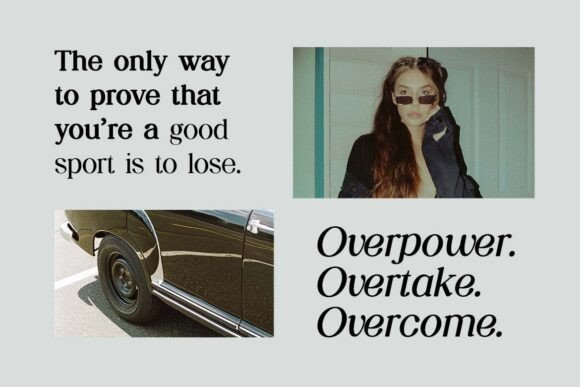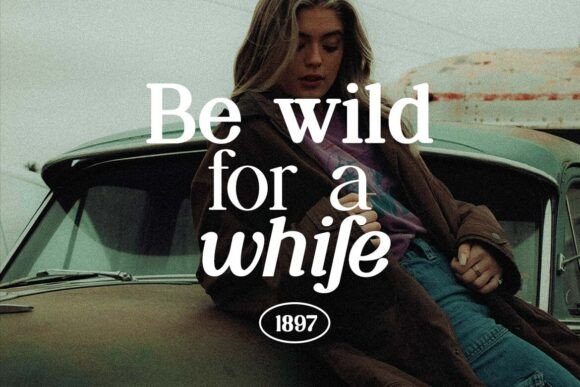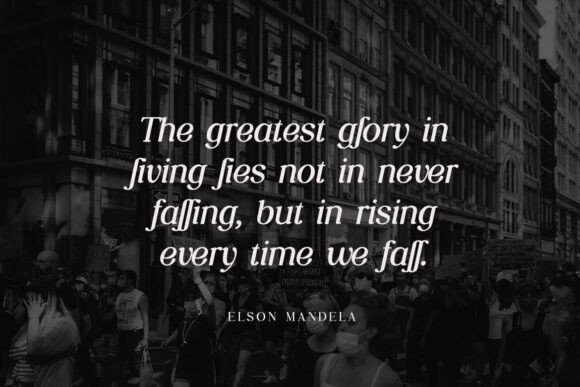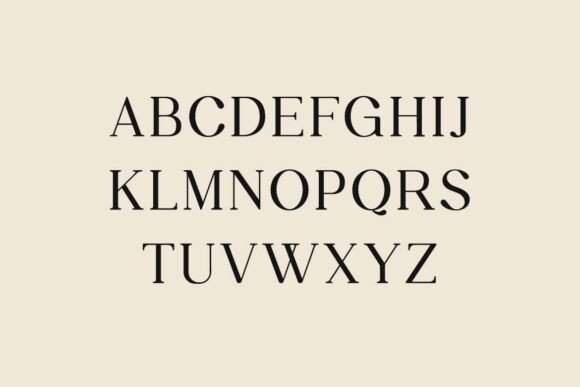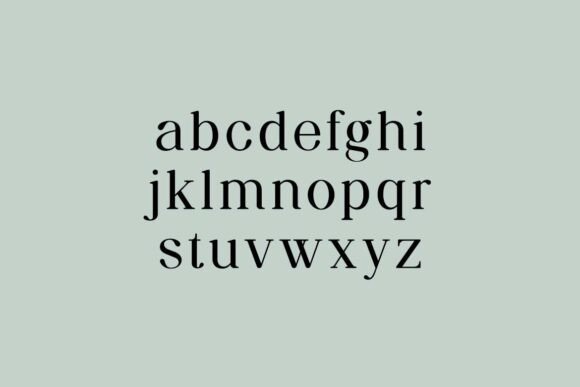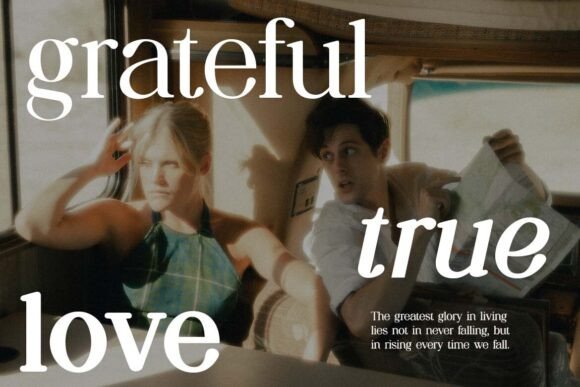
The Forestyland Font: A Timeless Choice for Creative Projects
Have you ever been in the middle of a design project, and suddenly, you’re stuck on finding the perfect font? I recall a recent experience where I was working on a branding project for a luxury fashion client. The brief required a font that exuded elegance, sophistication, and a touch of playfulness. After hours of searching, I stumbled upon the Forestyland Retro Serif Family Font, and it instantly became the star of the show!
A Personal Review: What I Love About Forestyland Font
The Forestyland Font has quickly become a favorite in my design arsenal, and here’s why:
- ✨ Elegant and Classy: The modern display font feels beautiful, classy, elegant, and stylish, making it perfect for high-end branding projects.
- ✅ Versatile: This font is ideally suited for a wide variety of projects, such as signature, stationery, logo, wedding, typography quotes, magazine or book covers, website headers, branding, and more.
- 💼 Fashion-Forward: Forestyland Font displays both masculine and feminine qualities, making it an excellent choice for fashion-related branding or editorial design.
While the Forestyland Font is an excellent choice, there are a few minor quirks to consider:
- 🤔 Limited use for body text: Due to its elegant and stylized nature, Forestyland Font might not be the best choice for lengthy body text. It’s better suited for headings and titles.
- ⚠️ Glyph compatibility: Some glyphs or special characters might not work seamlessly across all platforms or software. Always test and ensure compatibility before finalizing your design.
The Designer Inspiration Behind Forestyland Font
The Forestyland Font was inspired by the beauty of nature and the elegance of traditional typography. The designer aimed to create a font that would evoke a sense of sophistication and refinement, while also being versatile and adaptable to various design applications.
Q: What type of projects is Forestyland Font best suited for?
A: Forestyland Font is ideal for a wide range of projects, including branding, editorial design, fashion, and luxury goods.